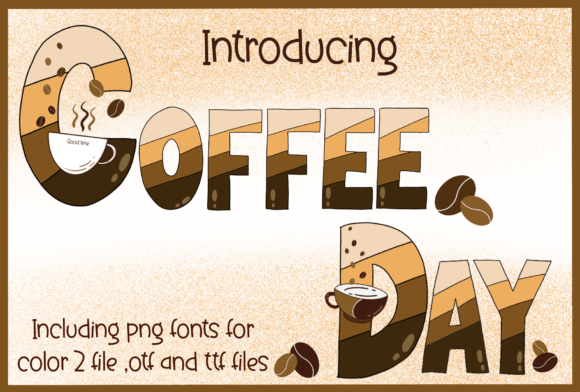
Journey into a Realm of Elegance with Coffee Day Font - The Epitome of Style for Your Creative Endeavors
Embark on a typographic adventure with Coffee Day Font, the enchanting decorative typeface that captivates hearts with its delicate strokes and playful charm. Designed with meticulous attention to detail by the renowned Itme_digitalart, this font is a masterpiece that dances across digital canvases with grace and finesse.
Immerse yourself in a world of limitless possibilities as Coffee Day Font becomes your trusted companion in the realm of design. Whether you're crafting heartfelt wedding invitations, designing eye-catching posters, or adding a touch of whimsy to your presentations, this font promises to elevate your creations to new heights of sophistication and charm.
Its simple yet captivating style makes it a versatile choice for a myriad of projects, ranging from educational materials and advertisements to illustrations and multi-purpose designs. Embrace the versatility of Coffee Day Font and unlock a world of creative possibilities, transforming your ideas into stunning visual masterpieces.
Transport yourself to a realm of timeless beauty as the Coffee Day Font weaves its magic into your designs. Its modern decorative flair adds a touch of elegance and sophistication to every letter, making your words dance with an enchanting rhythm that captivates audiences and leaves a lasting impression.
Indulge in the sheer joy of creation as Coffee Day Font becomes your muse, inspiring you to explore new design horizons and push the boundaries of your imagination. Let your fingers glide across the keyboard, guided by the font's intuitive flow, as you effortlessly craft designs that exude both charm and professionalism.
With Coffee Day Font as your creative ally, you'll discover a newfound confidence in your design abilities. Say goodbye to creative blocks and embrace a world of endless inspiration as this font empowers you to transform your ideas into captivating visual masterpieces.
Dare to be different, to stand out from the crowd, and to make a statement with your designs. Let Coffee Day Font be your secret weapon, your trusted companion in the pursuit of typographic excellence. As you watch your creations come to life, you'll realize that the possibilities are infinite, and the journey of design is one of endless wonder and delight.